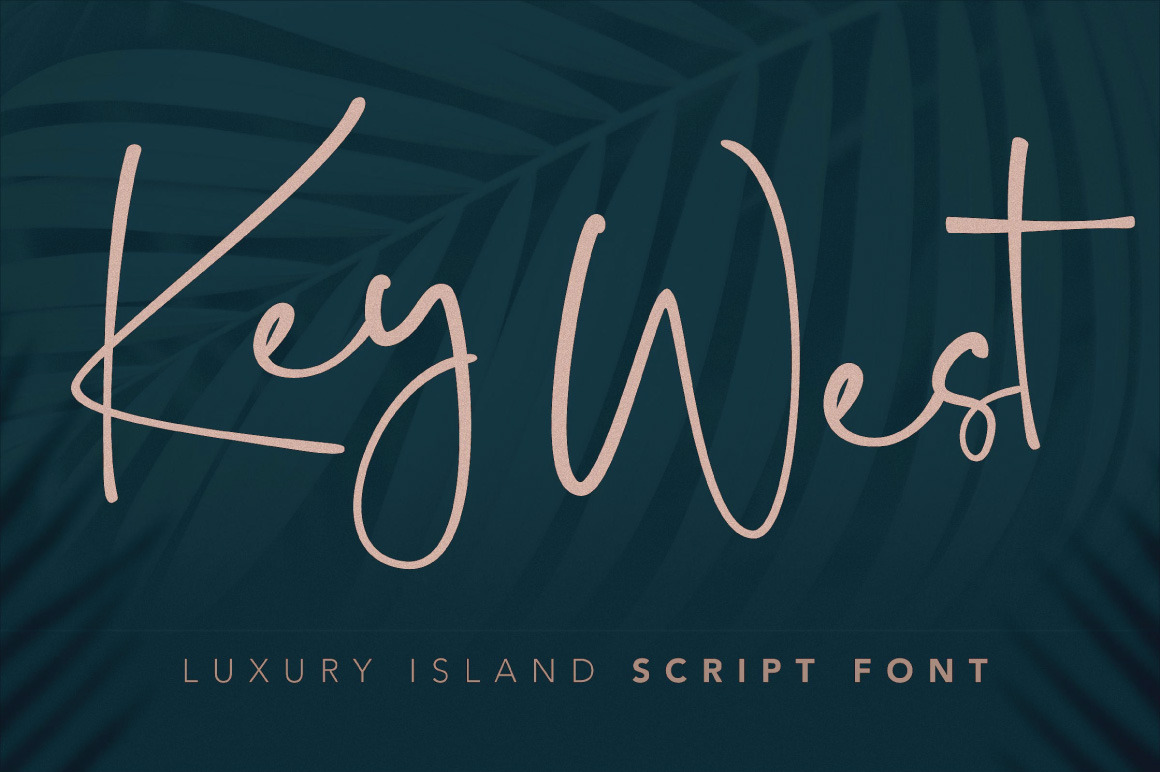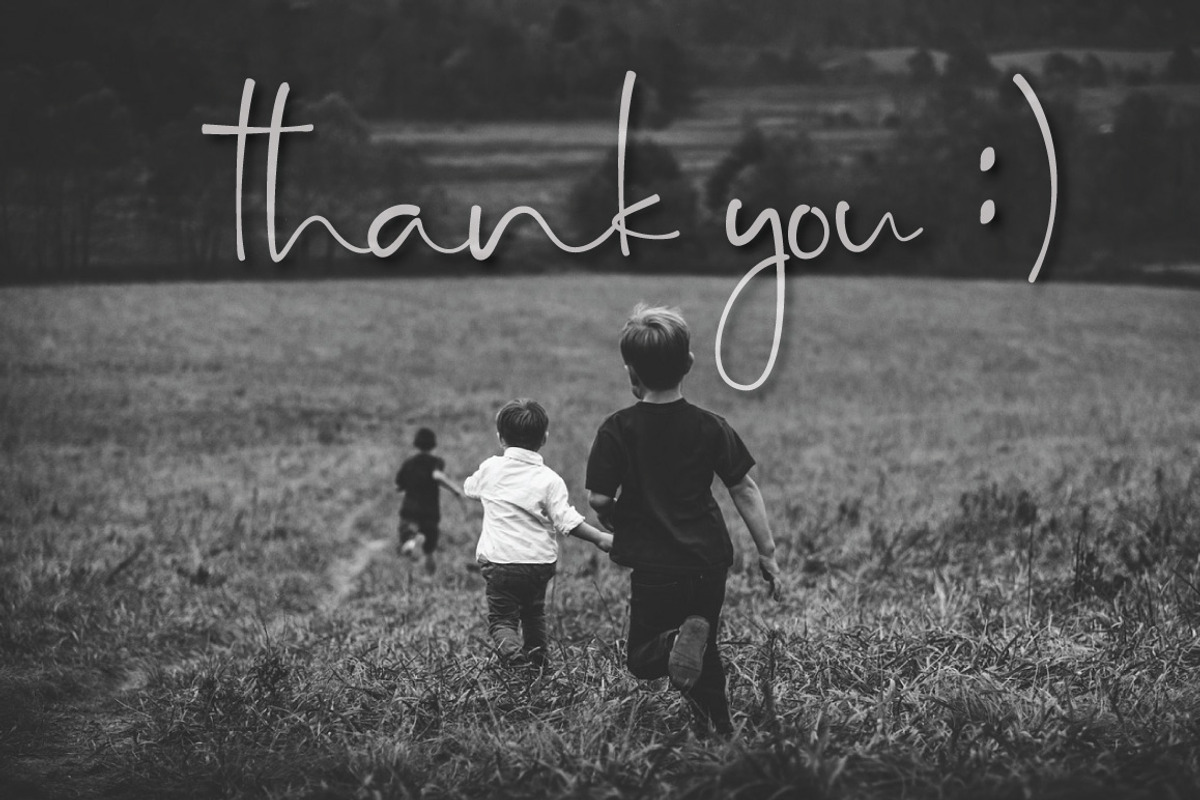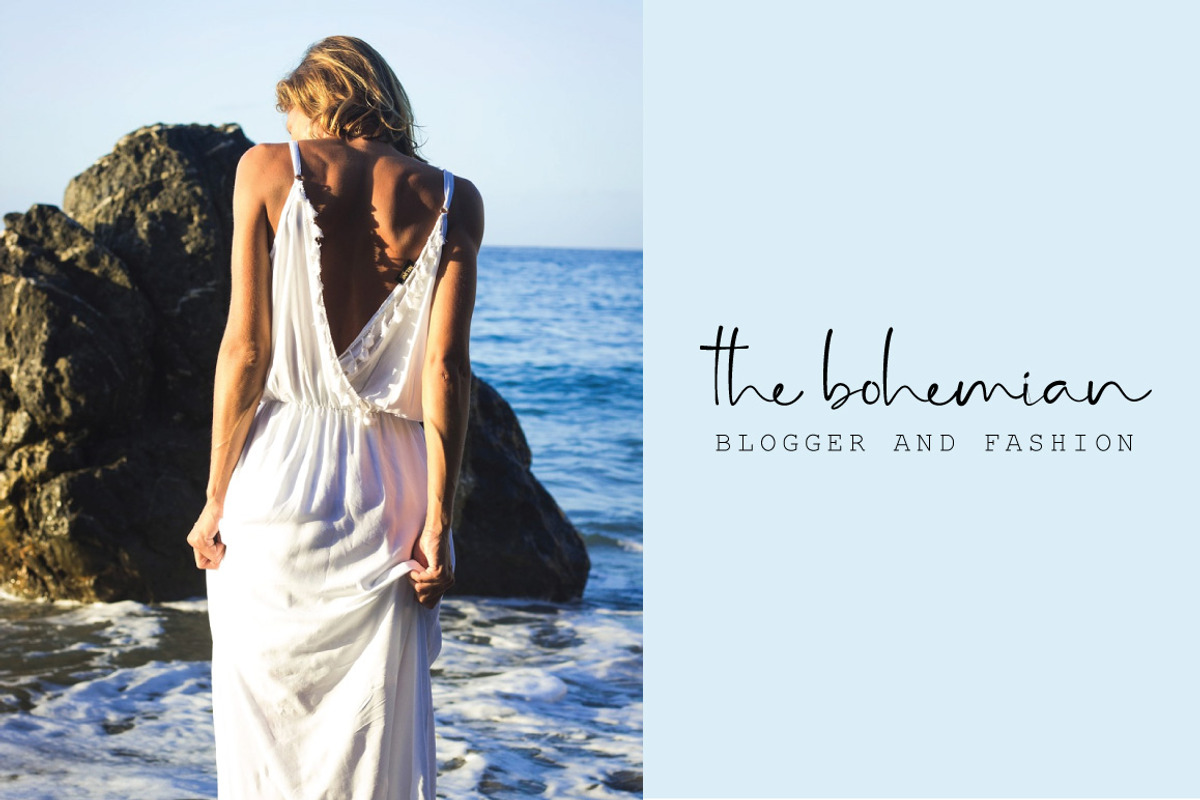
Key West Script Font
Introducing Key West Script Font: a chill, handwritten font with a handmade touch.
Key West is perfect for branding projects, homeware designs, product packaging - or simply as a stylish text overlay to any background image.
Key West Script : A handwritten script font containing upper & lowercase characters, numerals and a large range of punctuation.
- Ligatures : Are also available for several lowercase characters (double-letters which flow more naturally).